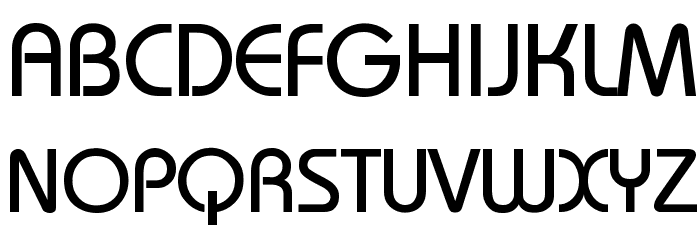
bauhau
Bauhau Font is a bold modern typeface available in TTF, OTF, and WOFF formats. Ideal for artistic projects, branding, and graphic designs.
Unlock Creativity with Bauhau Font
Bauhau Font, created by renowned designer Max Müller in 2023, blends bold aesthetics and modern design principles. This typeface is perfect for a variety of applications, including web design, branding, and eye-catching graphic elements, making it a versatile choice for artists and designers alike.
Key Features and Formats of Bauhau Font
The Inspiration Behind Bauhau Font
Drawing inspiration from the Bauhaus art movement, Bauhau Font captures the essence of 20th-century modernism. Max Müller aimed to combine functionality with aesthetic appeal, resulting in a typeface that resonates with both contemporary and classic design elements.
Ideal Applications for Bauhau Font
Whether for websites, posters, or branding materials, Bauhau Font excels in projects that require a bold, attention-grabbing typeface. Its unique qualities make it perfect for artistic expressions and innovative designs, giving every project a distinct edge.